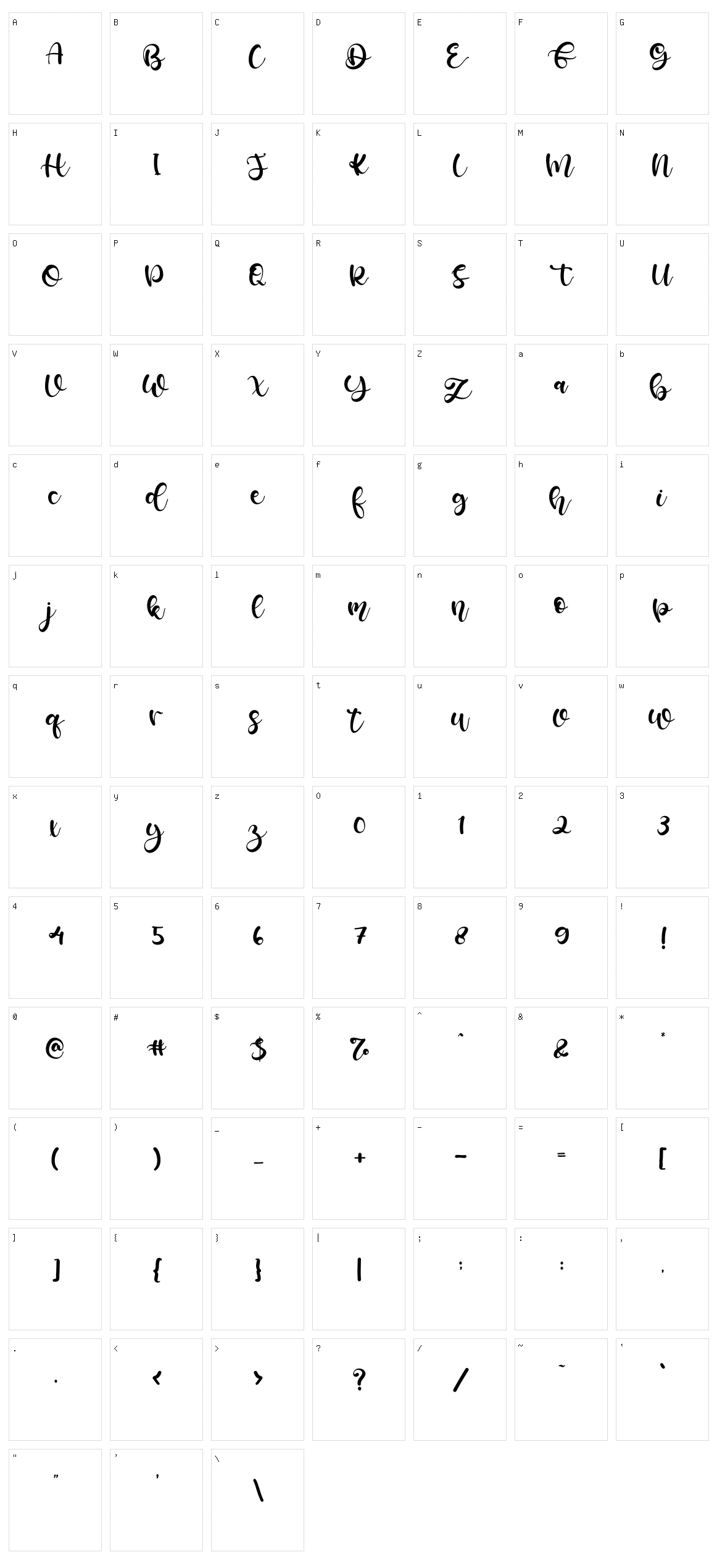
The free font Fullmoon is carefully designed by Kong Font, showcasing a thoughtful balance of creativity and usability and falls under the Script font style. When you download the ZIP file, it contains only 196.03 KB of font files, making it lightweight and quick to download. Please review the license details below to understand permitted usage and distribution rights. If license information is not available, we recommend using this font for personal projects only or contacting the author directly for commercial usage permissions.